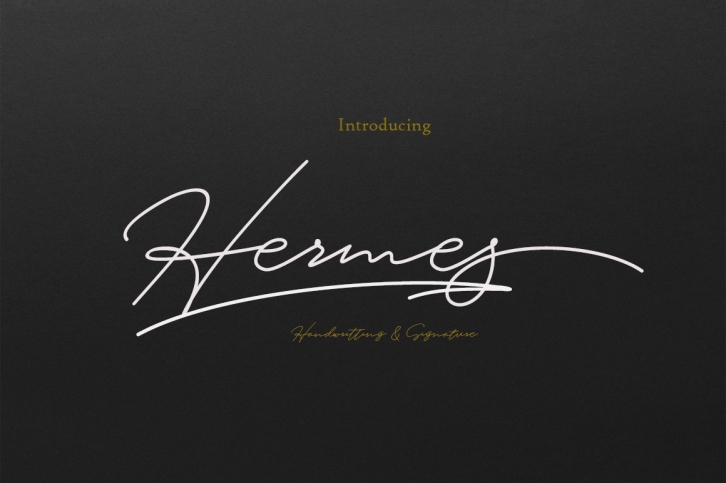
Hermes mono line is the font style handmade dancing and then live trace to have unique forms of calligraphy, the writing style is very natural.
The Features of this fonts is;
Standart ligatures Stylistic Alternates PUA Unicode (Private Use Areas)